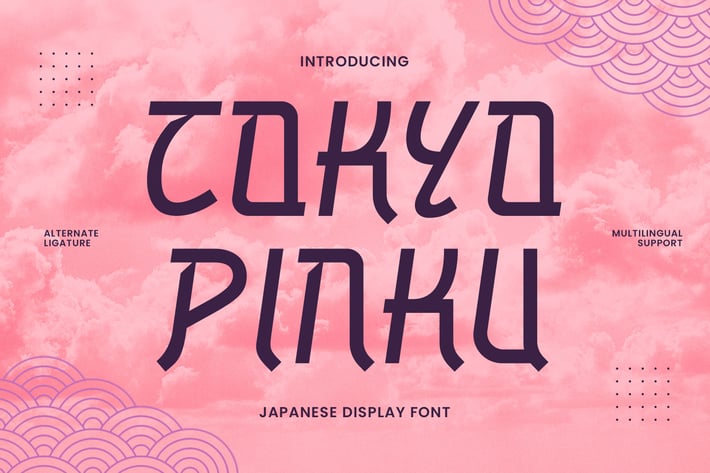
Tokyo Pinku - Japanese Display Font
Tokyo Pinku - Japanese Display Font contains a lowercase, uppercase, symbol, and also supports multi-language. There’s a lot of ligature in this font. Tokyo Pinku - Japanese Display Font also comes with ligatures, stylistic alternates, and many more.
this font is suitable for fashion, branding, catalog, and other designs that you want.